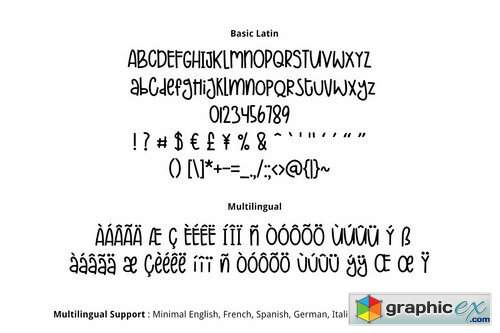
Creamy Pastel Font
Creamy Pastel Font is lovely cute multipurpose handmade font, suitable for many project children book, quotes, logo , heading , title etc.